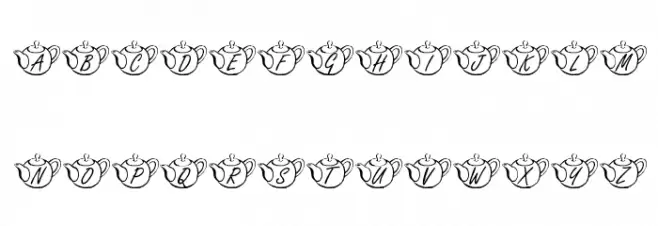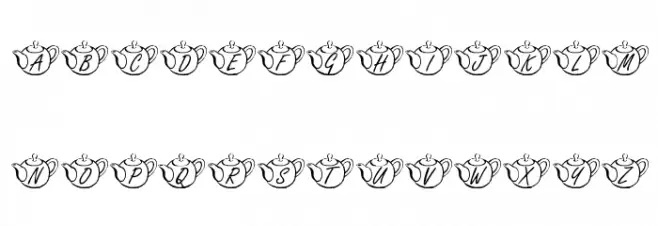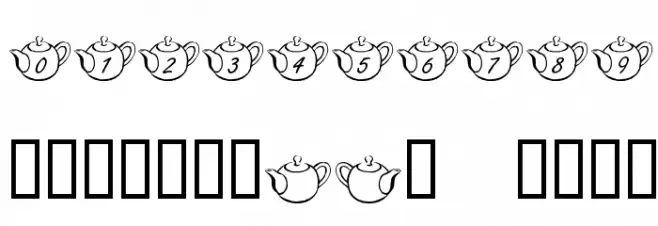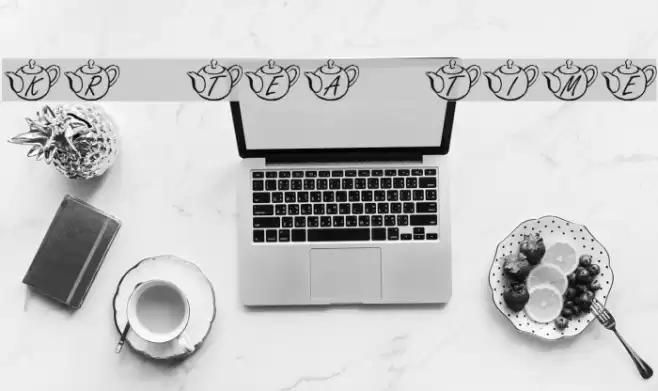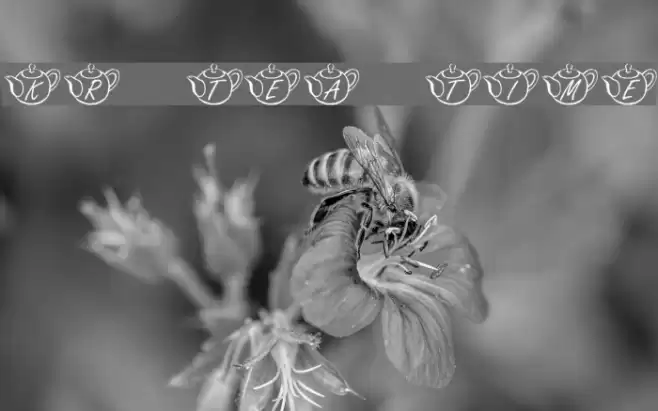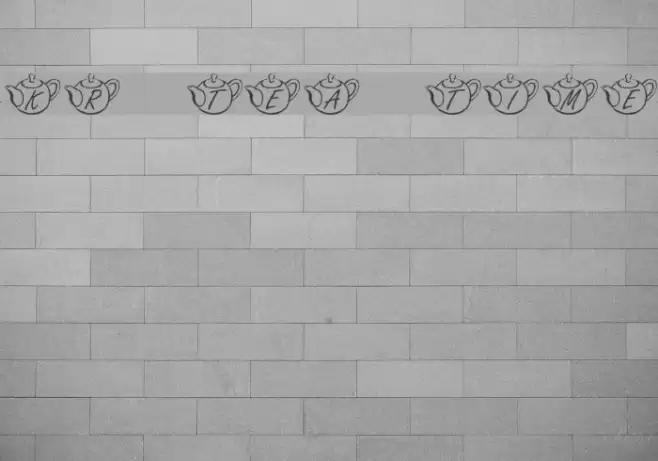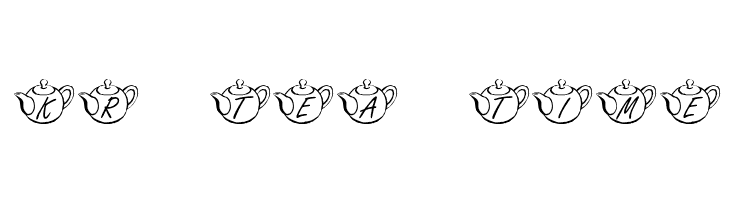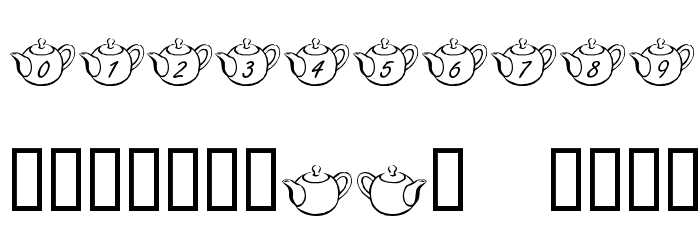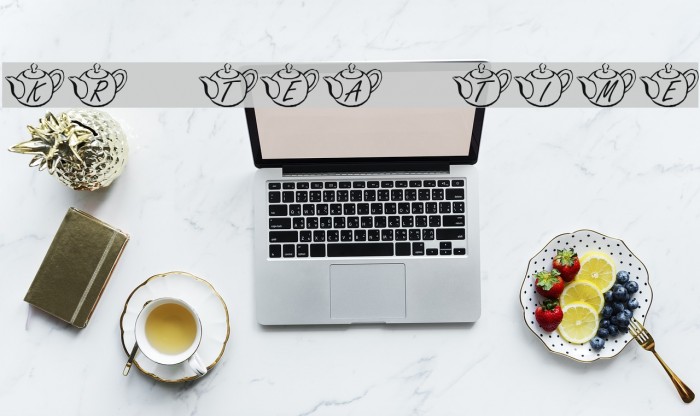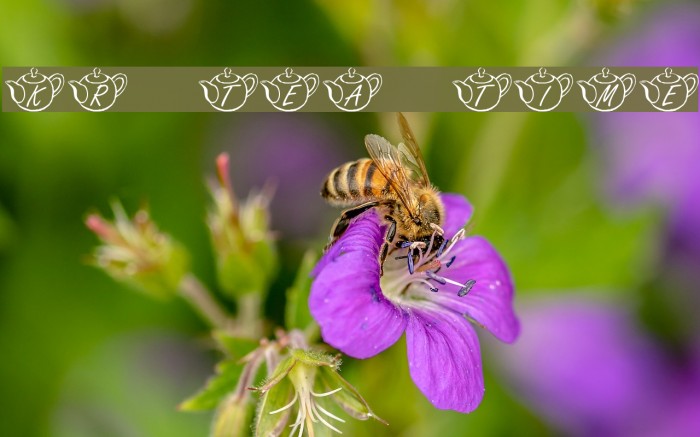
KR Tea Time
This whimsical font features each character enclosed within a charming teapot design, adding a playful and unique touch to any text. The letters and numbers are elegantly styled, maintaining legibility while embracing a decorative theme. The teapot motif is consistent across all characters, making it ideal for themed projects or designs that require a touch of creativity and fun. The font's distinctiveness lies in its ability to blend functionality with an artistic flair, making it suitable for a variety of applications where a lighthearted and imaginative style is desired.
A whimsical font with characters enclosed in teapot designs, perfect for creative projects.
- Proposed Projects: Ideal for tea-themed events, children's party invitations, cafe menus, or any project needing a playful touch.
- Overall Style: Decorative
- Use Case: Headlines, Logos, Invitations